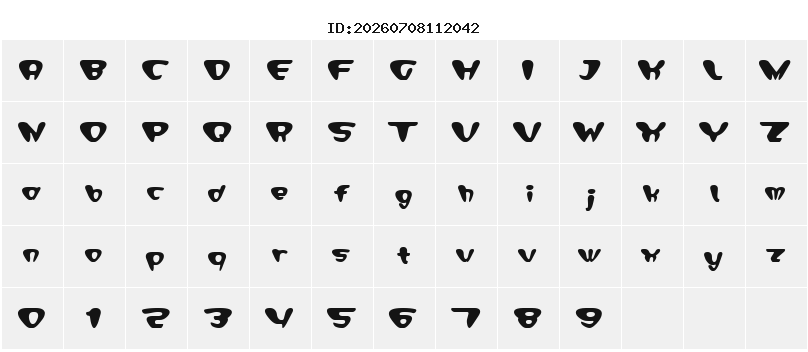
Daihead Preview
• Font Name: Daihead
• Full Font Name: Daihead Bold
About Daihead.ttf
Daihead.ttf is a modern, elegant sans-serif font designed for ultimate readability and visual harmony. Perfect for branding, headlines, web design, and print materials.